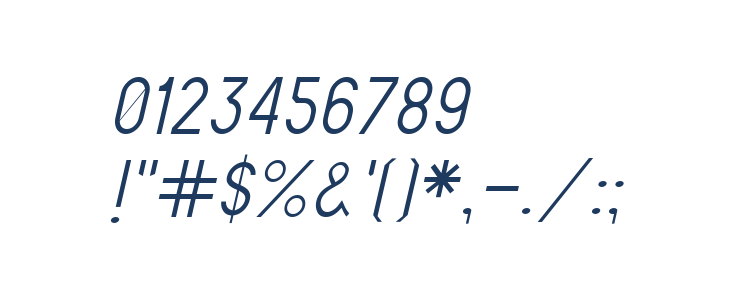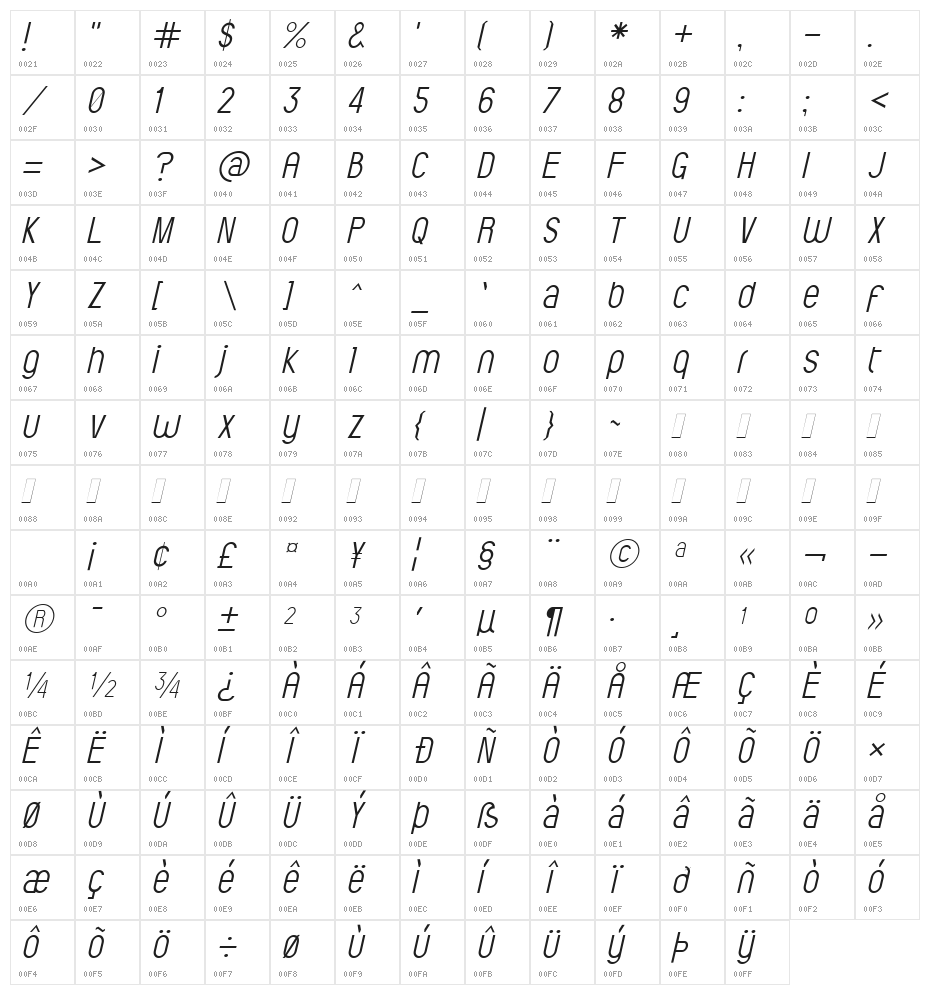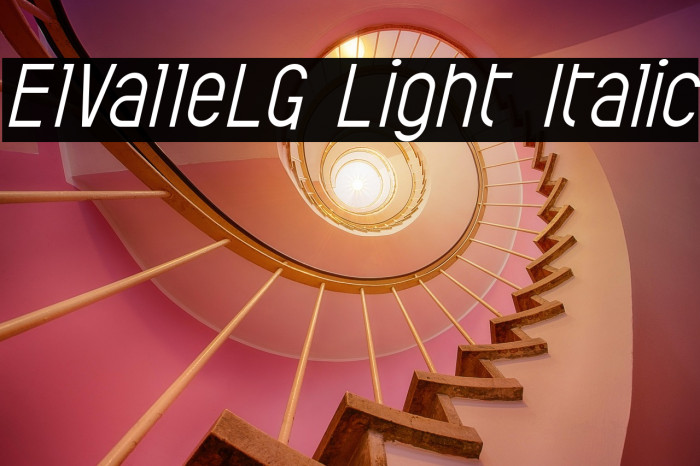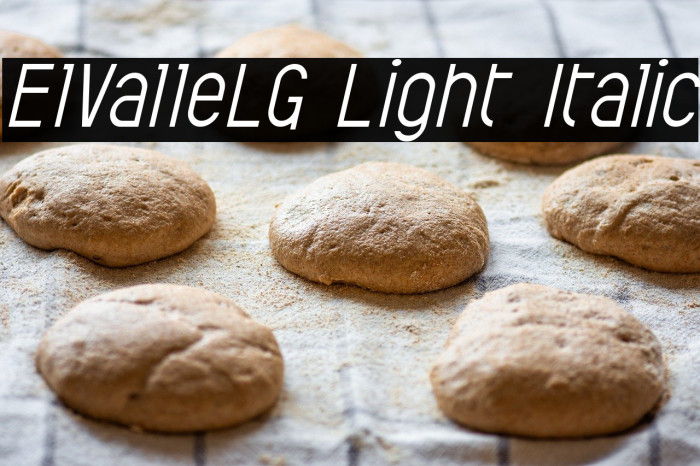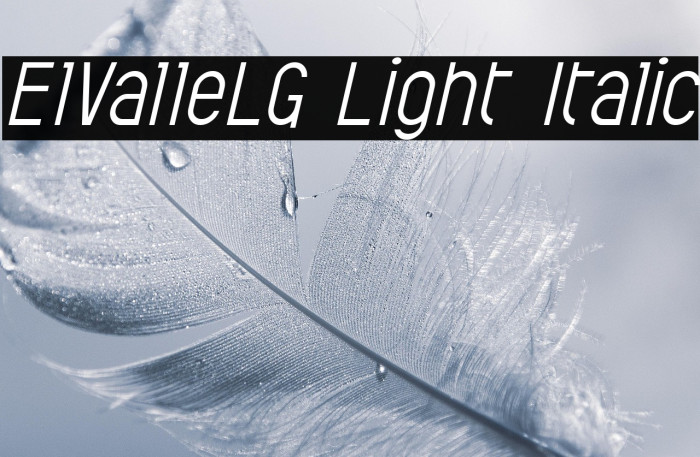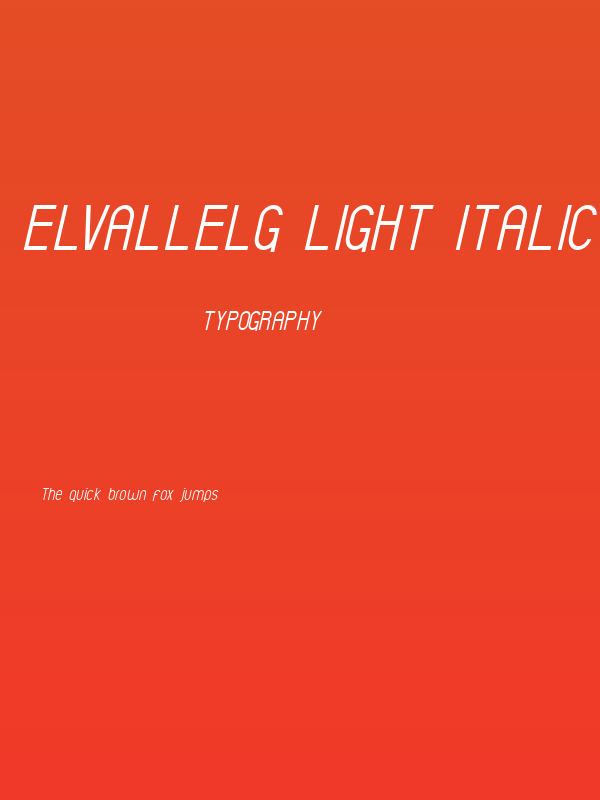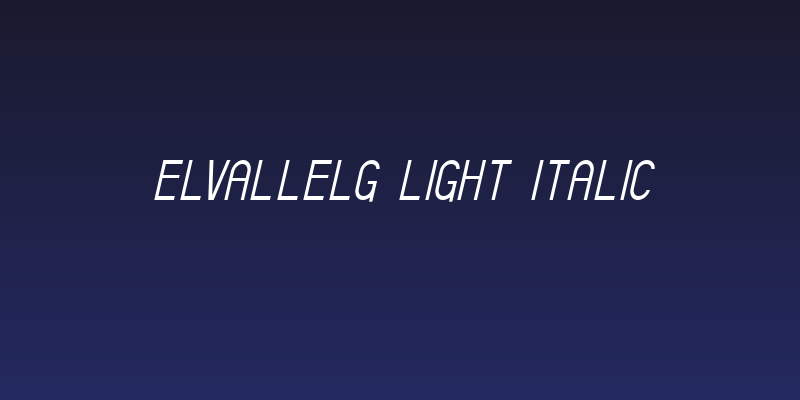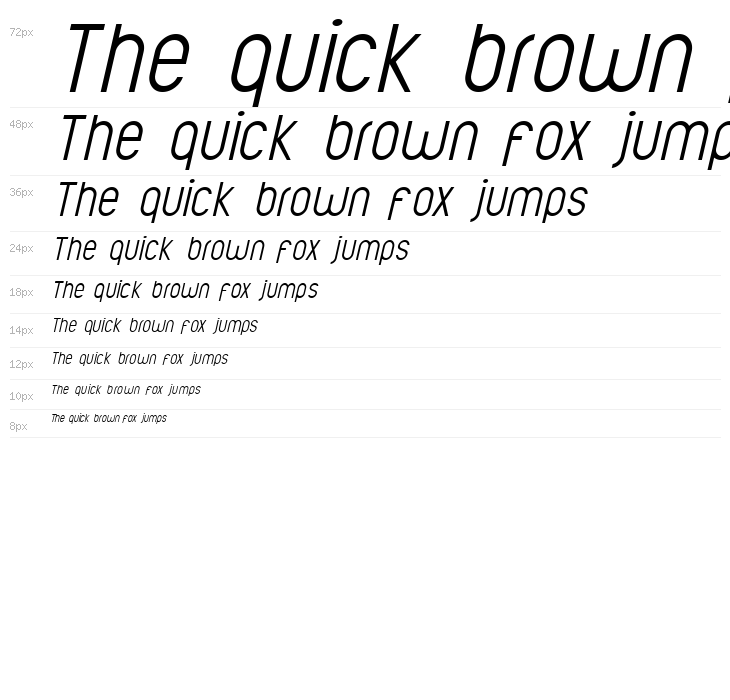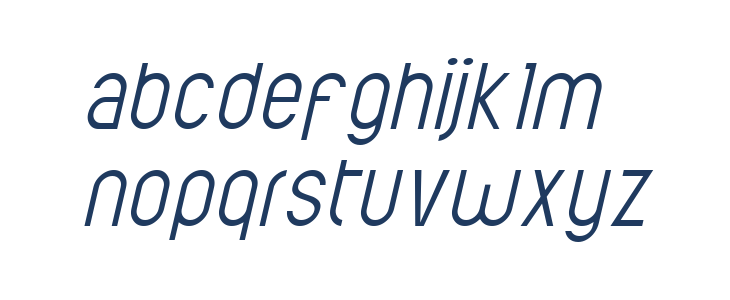
ElValleLG Light Italic Font
ElValleLG Light Italic Description
This font features a sleek and modern design with a light weight and italic style. The characters are slightly condensed, giving it a streamlined appearance. The strokes are consistent in thickness, providing a uniform look across all letters and numbers. The font maintains a clean and professional aesthetic, suitable for a variety of applications. Its italic nature adds a sense of motion and dynamism, making it ideal for projects that require a contemporary and elegant touch. The character spacing is normal, ensuring readability while maintaining its stylish appeal.